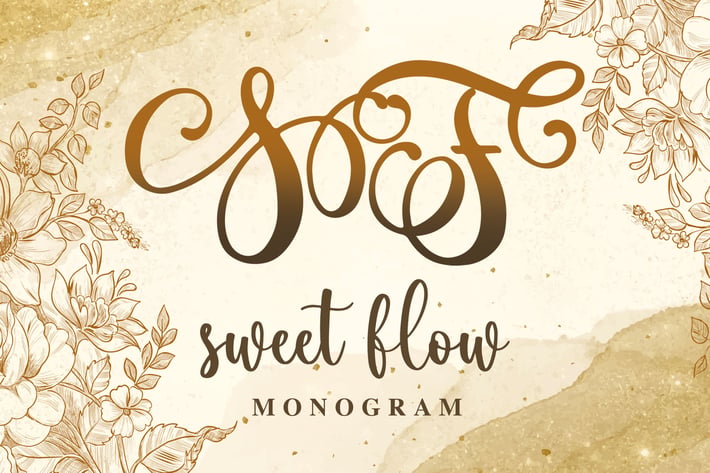
Sweet Flow Monogram Font
Introducing of our new product the name is Sweet Flow Monogram Font. Sweet Flow Monogram Modern calligraphy style this font is a fun theme very good for display, tshirt design, craft, quote sign, logotype and etc